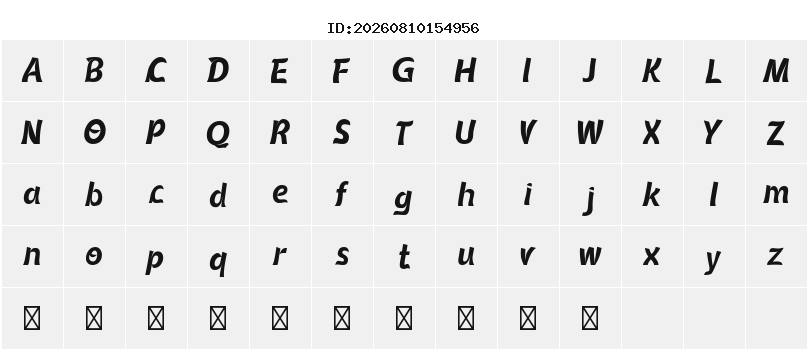
Queenamor Preview
• Font Name: Queenamor
• Full Font Name: Queenamor
• Version: Version 1.10 February 11, 2016
• Designer: Joe Chau
About Queenamor.otf
Queenamor.otf is a modern, elegant sans-serif font designed for ultimate readability and visual harmony. Perfect for branding, headlines, web design, and print materials.